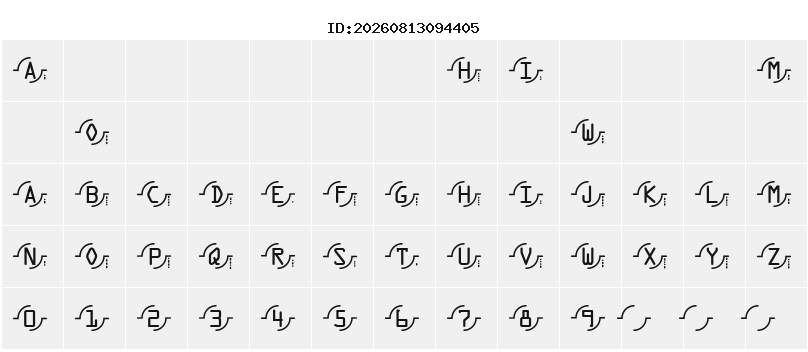
Rekkoy Preview
• Font Name: Rekkoy
• Full Font Name: Rekkoy
• PostScript Name: Rekkoy
About Rekkoy.ttf
Rekkoy.ttf is a modern, elegant sans-serif font designed for ultimate readability and visual harmony. Perfect for branding, headlines, web design, and print materials.